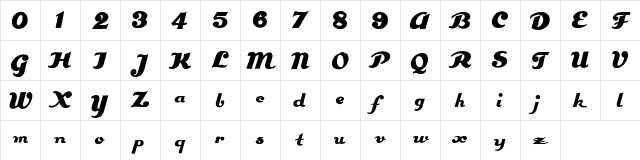
Estenotype Regular
| Foundry | Paulo W |
Design Context for Estenotype Typeface
Estenotype is a composed and adaptable typeface that performs quietly and consistently across a wide range of design contexts.